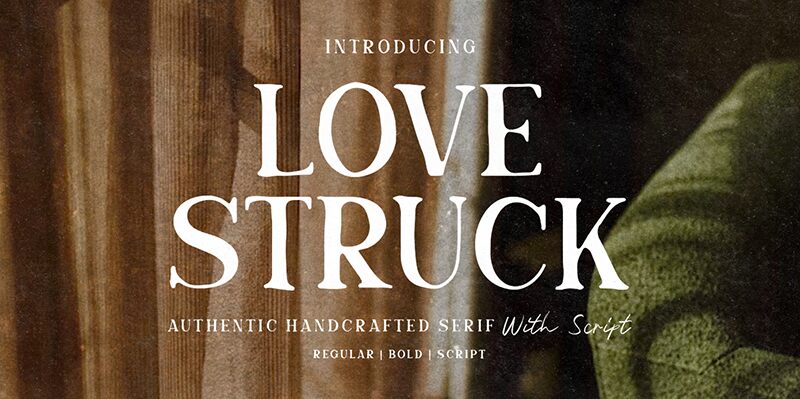
Love Struck Script font by Letterhend Studio is a free handwritten typeface with a cursive romantic style. The flowing lines and joined letters create an elegant font that can express warmth and love in a captivating manner, both when used in display titles or short texts of moderate sizes.
Use Love Struck Script font in invitations, greeting cards, gift packages, wrapping papers, branding projects, posters, flyer designs, business cards, logo designs for restaurants or clothing brands. Other ideas include Instagram photos and stories or YouTube videos.